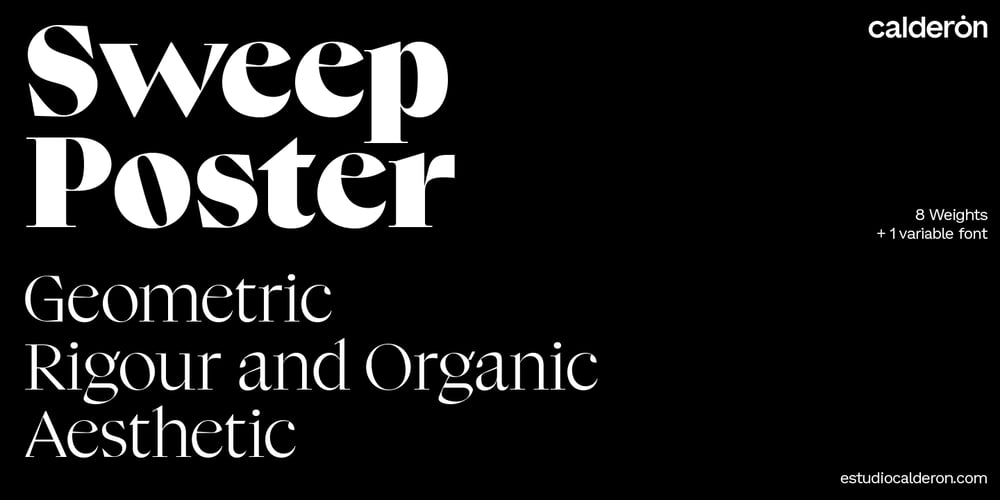
Sweep Poster Font Family was designed by Felipe Calderón and published by Estudio Calderon. Sweep Poster contains 8 styles and family package options. A new font by Calderon A typeface with a contemporary aesthetic, a mix of geometric and organic shapes that give each letter a special and unexpected design. The conceptual process was developed by making a re-interpretation of the Caslon styles making different explorations by using a calligraphic nib pen in order to find a new personality to each letter.The result is a modern, elegant and experimental serif typeface. Delicate in its Extra Light version and impressive in the Bolder style. The sweep design hides harmonic adjustments based on geometric strokes that generate a unique and attractive texture. For a better experience we recommend you to use it in headlines instead of body text.Includes:+ 8 weights+ 1 variable font+ OTF features+ Character set that supports Western, Central and Southeastern European languages. + Script: latin